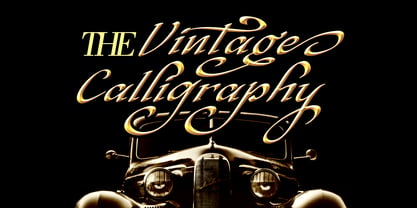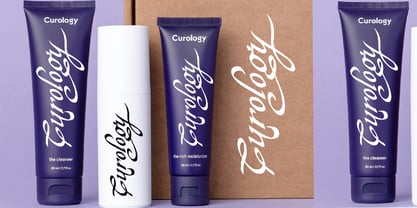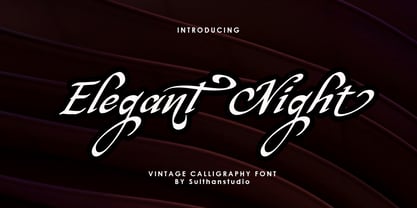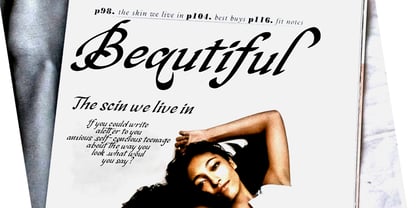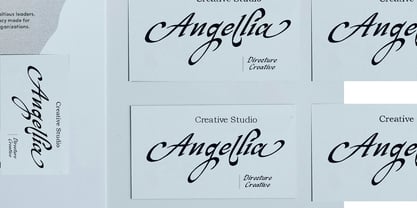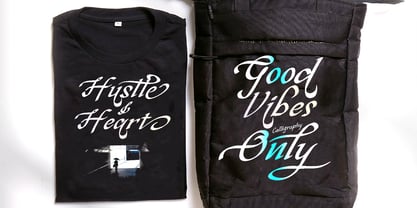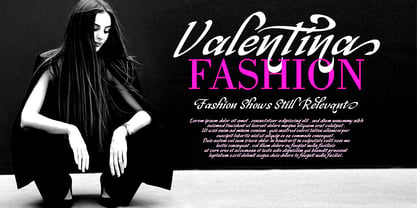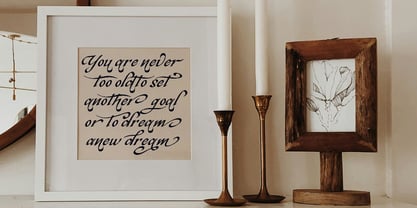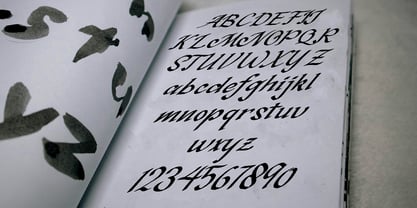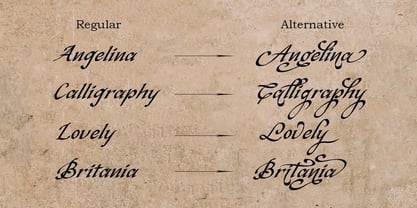
Elegant night
by Sulthan Studio
The Elegant night Font Family was designed by Nasrullah and published by Sulthan Studio. Elegant night contains 1 styles.
Elegant night is an amazing vintage calligraphy font, because I often work late at night to write this font, and feel a very warm feeling and imagine the beautiful times in the past, so this font was born with the name Elegant night. This vintage, energetic, classic, elegant and unique style font is written on paper using a flat calligraphy pen.
This font is perfect for product labels, magazines, wedding invitations, event posters, business cards, branding designs, and much more can be done with this font so that your design gets a cool and luxurious classic style.
The font is equipped with Uppercase lowercase letters, numbers punctuation, language support, alternative swashes uppercase and lowercase letters and also ligatures. The font has also been encoded PUA.